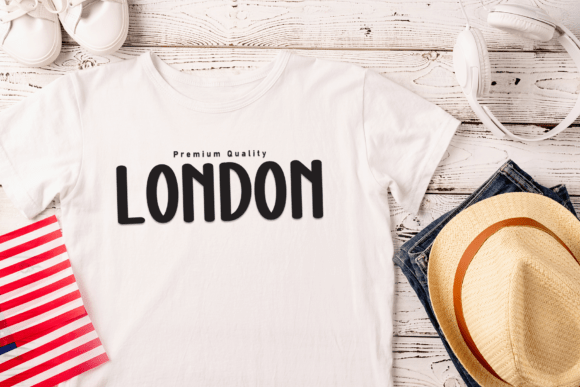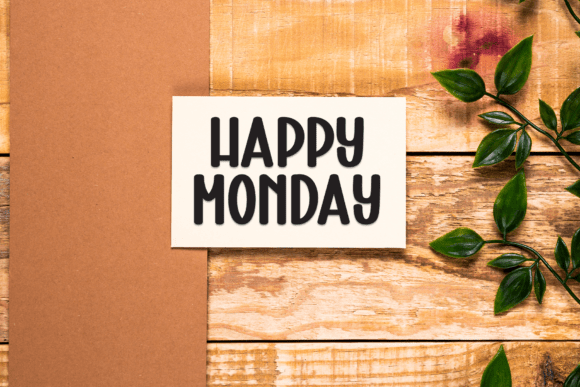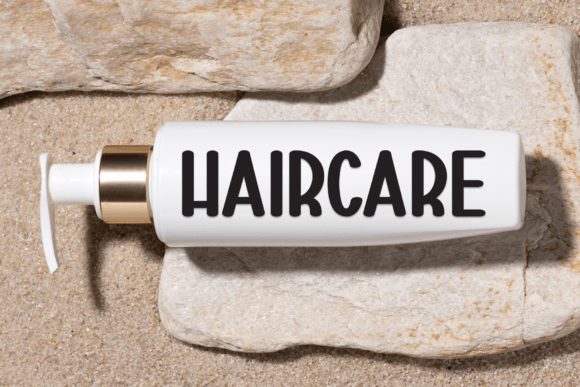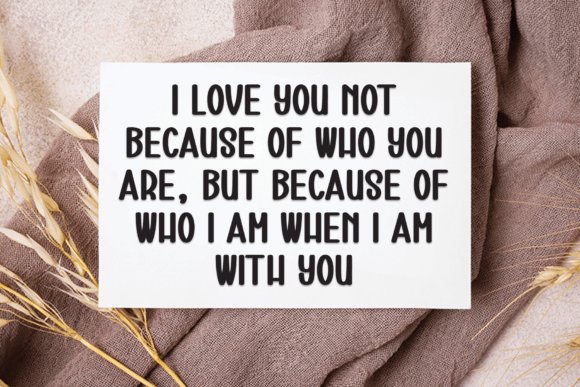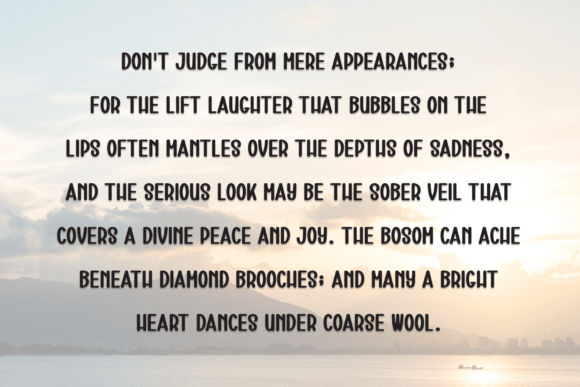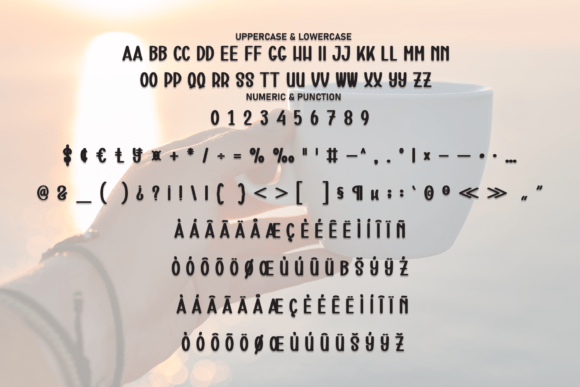
Unleash the Charm of Good Morning Font: A Whimsical Journey in Typography
Are you on the hunt for a font that embodies warmth, charm, and a dash of playfulness? Look no further than the Good Morning Font, a captivating handwritten display font that is sure to mesmerize. This delightful font is a creative blend of charming and warm aesthetics, making it the perfect choice for designers and crafters seeking to infuse their projects with a sense of joy and whimsy.
The Perfect Blend of Whimsy and Warmth
Good Morning Font presents itself as a unique and engaging typeface that radiates a lovable and lively spirit. Its charming and warm aesthetics make it an ideal choice for a variety of design endeavors, from wedding invitations and greeting cards to social media graphics and branding materials. This font is designed to bring a sense of cheer and playfulness to your designs, making it perfect for crafters and designers who want to add a personal touch to their work.
One of the most exciting aspects of Good Morning Font is its versatility. This font can be used in a wide range of design projects, from formal to informal, and is perfect for:
- Wedding invitations and stationery: Add a touch of elegance and whimsy to your wedding designs with this beautiful font.
- Greeting cards and invitations: Create animated and engaging greeting cards that will leave a lasting impression.
- Social media graphics: Add a dash of personality to your social media graphics and make them stand out.
- Branding materials: Use Good Morning Font to create a unique and memorable brand identity.
Transforming Text into a Fanciful Voyage
Good Morning Font has a magical quality that transforms every word into a fanciful voyage through the world of typography. Its unique and playful design makes it perfect for designers and crafters who want to add a touch of personality to their work. Whether you’re creating a whimsical wedding invitation or a playful social media graphic, this font is sure to captivate your audience and leave a lasting impression.
Bottling the Essence of Cheer
Good Morning Font bottles the essence of cheer, providing a perfect option to imbue your design narratives with a dose of joyful charisma. Its lovable and lively spirit makes it perfect for designers and crafters who want to create designs that are not only visually stunning but also emotionally resonant.
Why Choose Good Morning Font?
So, why choose Good Morning Font for your next design project? Here are just a few reasons:
- Unique and playful design: Good Morning Font is a one-of-a-kind typeface that will add a touch of personality to your designs.
- Versatile: This font can be used in a wide range of design projects, from formal to informal.
- Emotionally resonant: This font has a lovable and lively spirit that will help you create designs that connect with your audience on an emotional level.
In conclusion, Good Morning Font is a captivating handwritten display font that is sure to mesmerize. Its unique blend of charming and warm aesthetics makes it perfect for designers and crafters seeking to infuse their projects with a sense of joy and whimsy. With its versatility, playful design, and emotionally resonant spirit, Good Morning Font is the perfect choice for a wide range of design endeavors. So why wait? Unleash the charm of Good Morning Font and take your designs to the next level!